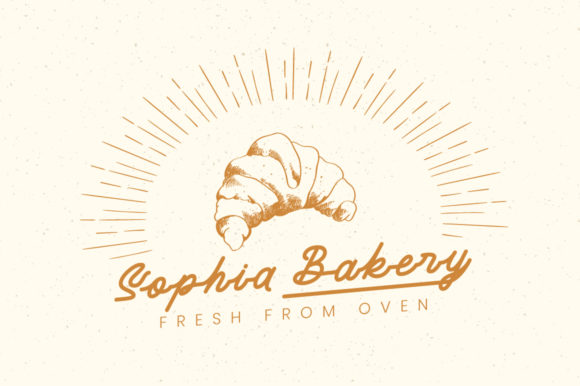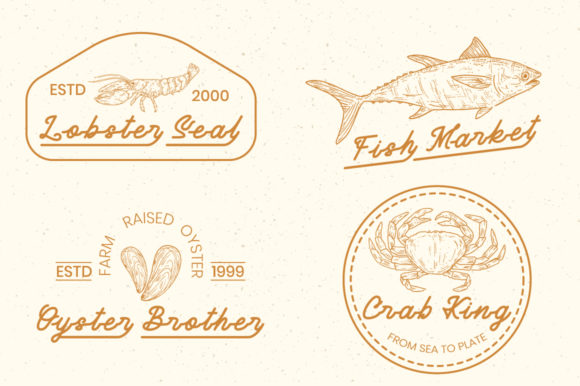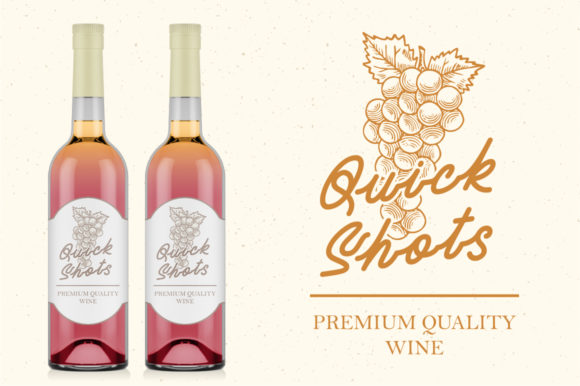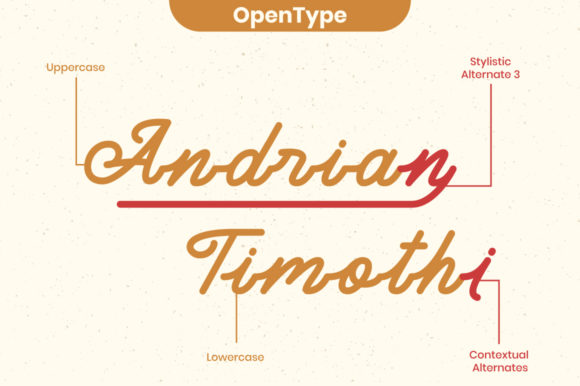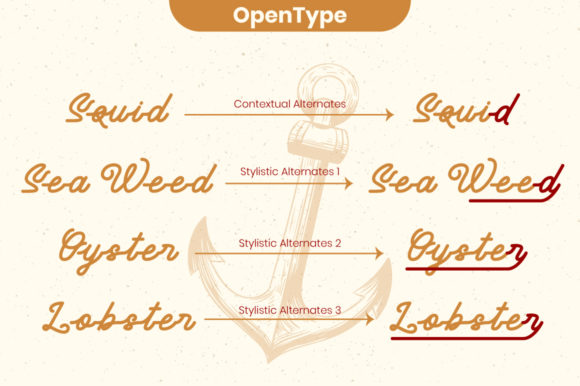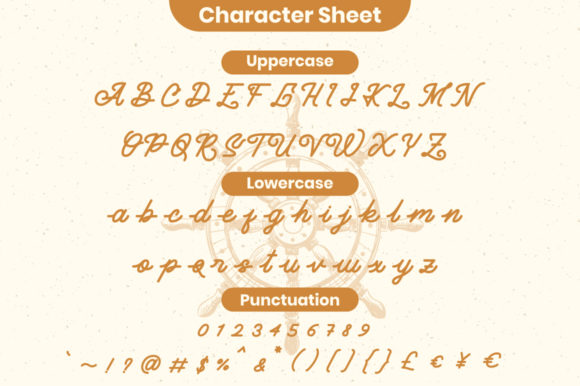
Araina Font: Elevate Your DIY Projects with Elegance and Timelessness
In the world of typography, few fonts manage to strike a balance between elegance, timelessness, and freshness. But Araina Font does just that, simplifying sophistication into a truly outstanding handwritten font. With its classy calligraphic influences, Araina is the perfect addition to any designer’s or crafter’s toolkit, ready to bring a touch of refinement and personality to any DIY project.
The Essence of Araina Font
Araina Font stands out in the digital age, where fonts are abundant and often lack distinct character. Its unique blend of traditional calligraphy and modern simplicity makes it an asset for creatives looking to infuse their work with a sense of luxury and approachability. Whether you’re crafting invitations, designing logos, or creating engaging content for social media, Araina offers the versatility and charm to make your project shine.
Classy Calligraphic Influences
The beauty of Araina lies in its roots, drawing inspiration from classic calligraphy. Each letter is meticulously designed to reflect the fluidity and expressiveness of handwritten script, yet it retains a level of legibility that makes it suitable for a wide range of applications. From the graceful swirls of its uppercase letters to the delicate touches of its lowercase counterparts, Araina exudes a sense of bespoke craftsmanship.
Timeless and Fresh
What sets Araina apart from other fonts is its ability to feel both timeless and fresh. In an era where design trends come and go, Araina’s classic appeal ensures it never goes out of style. Its clean lines and elegant curves give it a contemporary feel that’s hard to resist. This enduring quality makes Araina an excellent choice for projects that require a touch of sophistication without the risk of looking dated.
Bringing DIY Projects to Life
For crafters and DIY enthusiasts, finding the right font can elevate a project from ordinary to extraordinary. Araina Font offers endless possibilities for customization and creativity. Imagine adding a personal touch to handmade cards, crafting bespoke wedding invitations, or designing unique signage for your business. With Araina, the possibilities are limitless.
Why Designers Love Araina
Designers appreciate fonts that offer flexibility and character, and Araina delivers on both fronts. Its wide range of applications means it can be used for branding, advertising, packaging, and more. The font’s easy readability ensures that your message is conveyed clearly, while its aesthetic appeal captures the attention of your audience.
Tips for Using Araina Font Effectively
- Pair it with Neutrals: Let Araina be the star of your design by pairing it with neutral fonts that complement its elegance.
- Experiment with Sizes: Play with different sizes to emphasize certain words or phrases, adding depth to your design.
- Color Matters: Choose colors that match the mood of your project. Soft pastels for whimsical designs, deep tones for luxury brands.
| Font Name | Araina Font |
| Author | hi.letterseal |
Araina Font is more than just a typeface; it’s a tool for creative expression. Its unique blend of elegance, timelessness, and freshness makes it an invaluable resource for designers and crafters alike. Whether you’re looking to add a touch of sophistication to your DIY projects or seeking a versatile font for your design work, Araina is sure to exceed your expectations. So why settle for ordinary when you can make your projects truly outstanding with Araina Font?